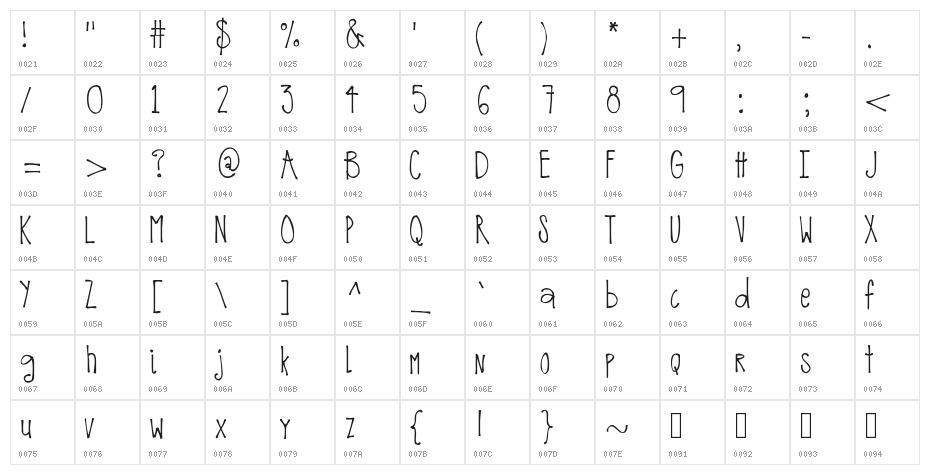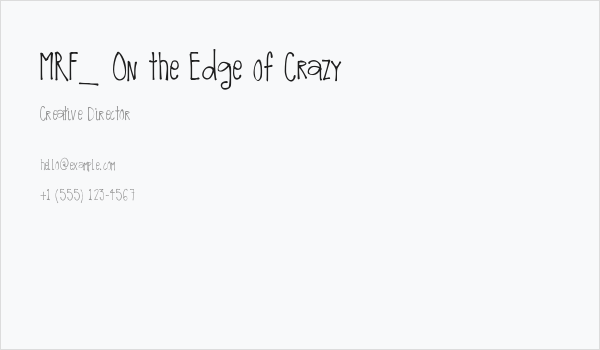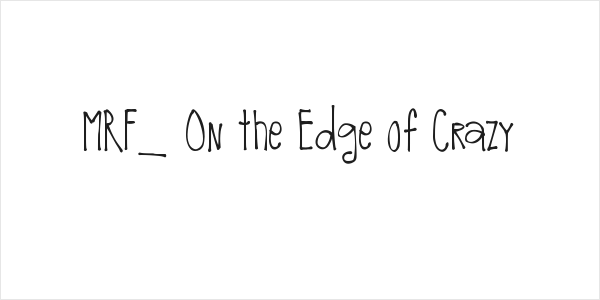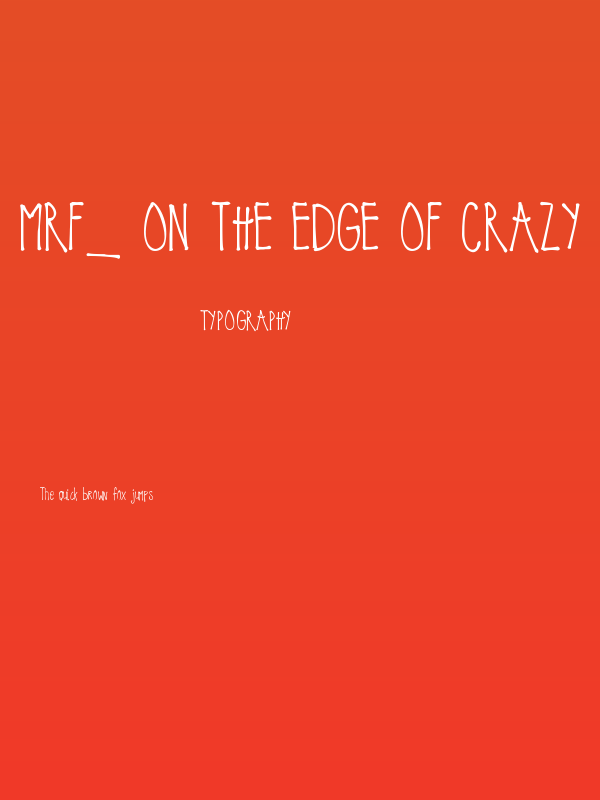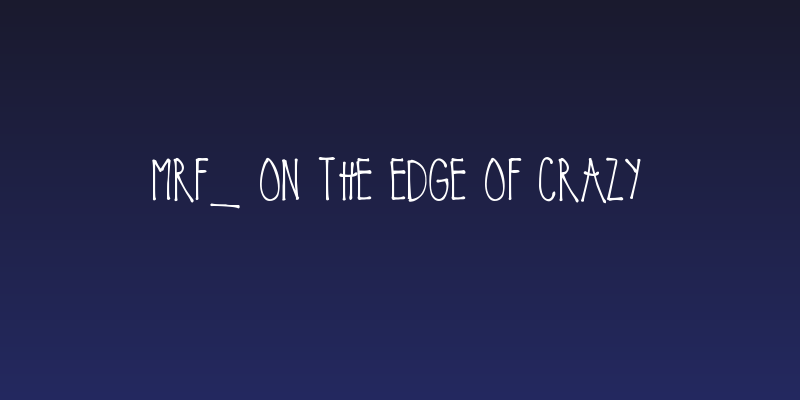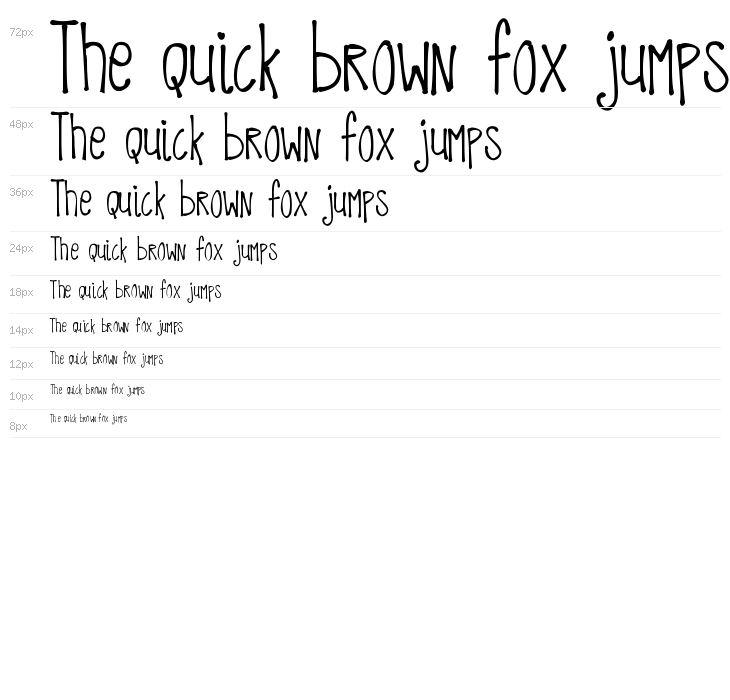
MRF_ On the Edge of Crazy Font
MRF_ On the Edge of Crazy Description
This font features a playful and whimsical handwritten style, characterized by its irregular and slightly quirky letterforms. The uppercase and lowercase letters maintain a consistent flow, with a casual and informal appearance. The strokes are uneven, adding to the font's charm and personality. The numbers and special characters follow the same playful aesthetic, making it suitable for creative and fun projects. Its unique style is perfect for capturing attention and conveying a sense of individuality.
| Proposed Projects | Ideal for greeting cards, children's books, playful branding, and creative posters. |